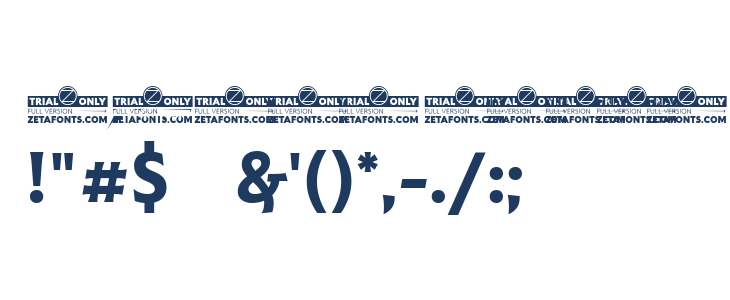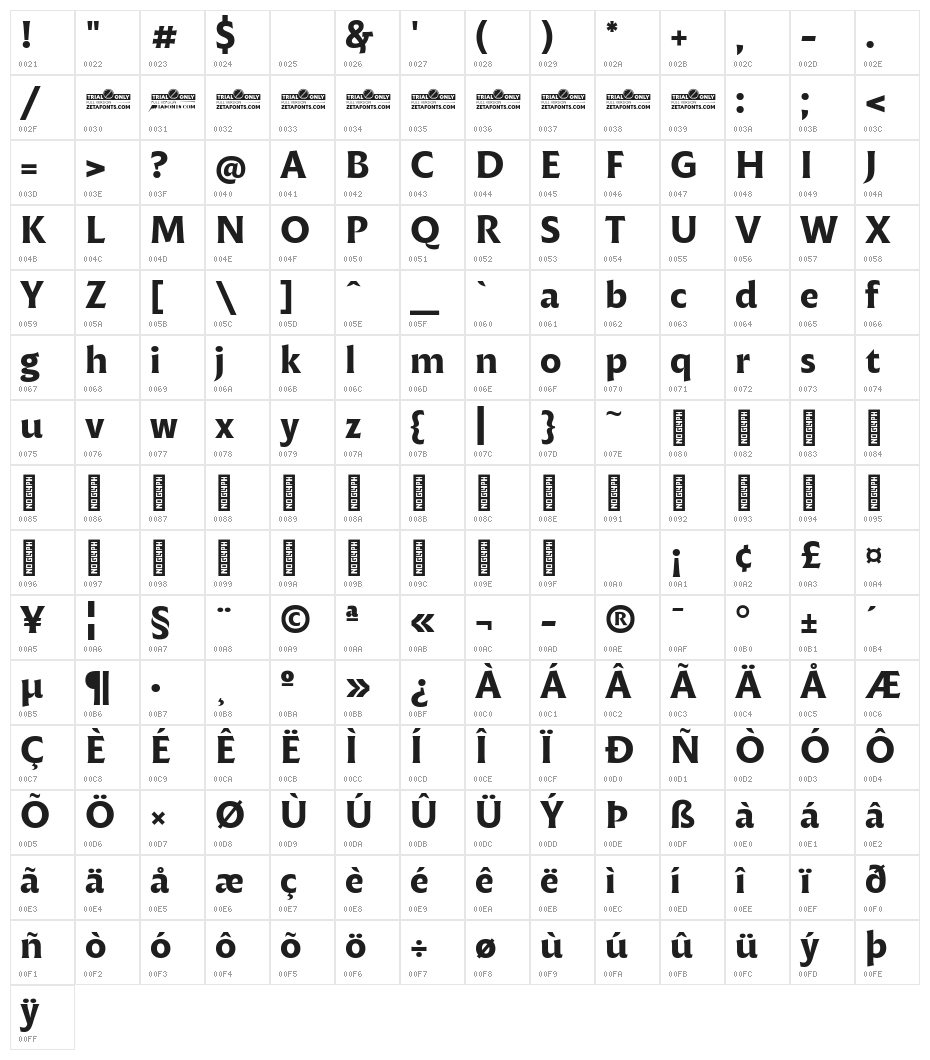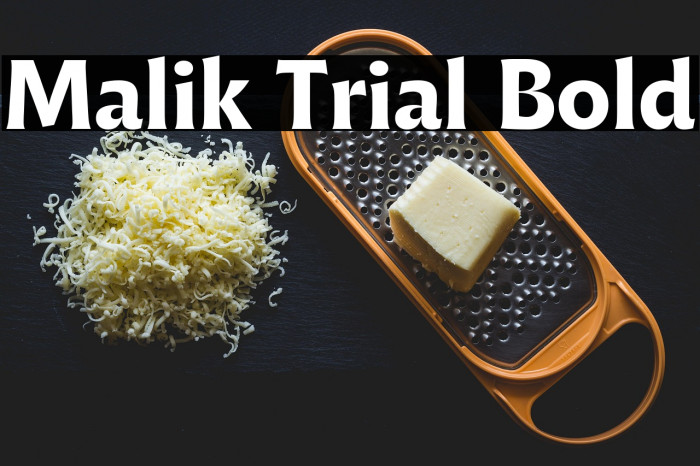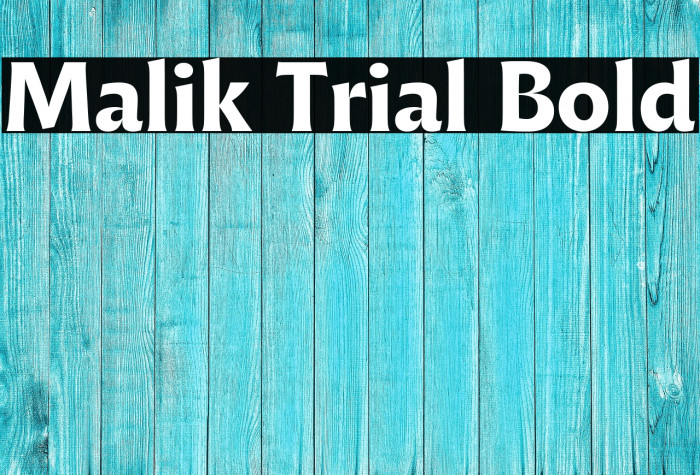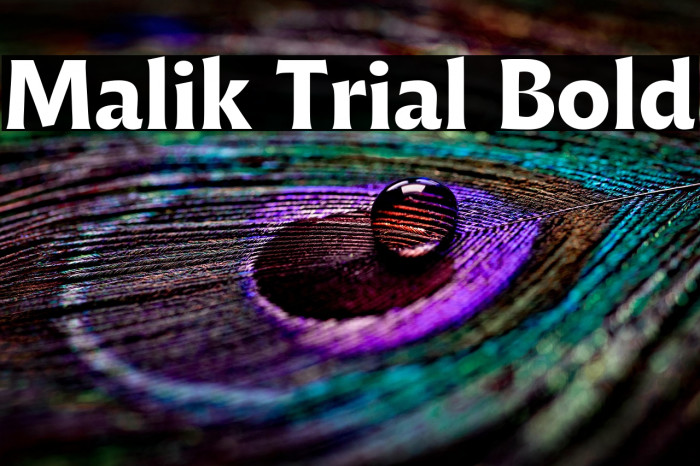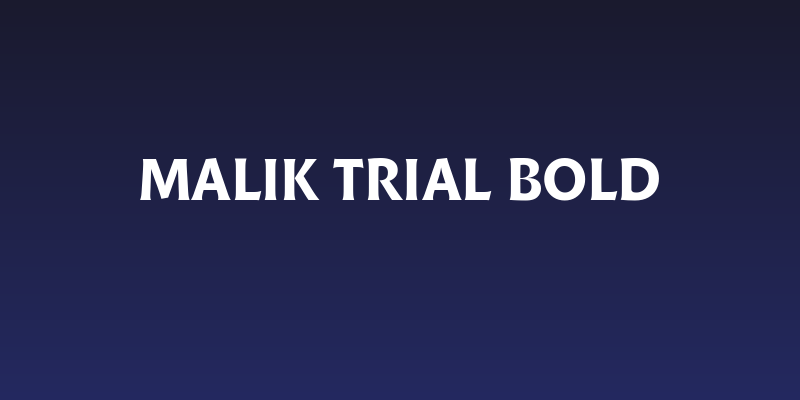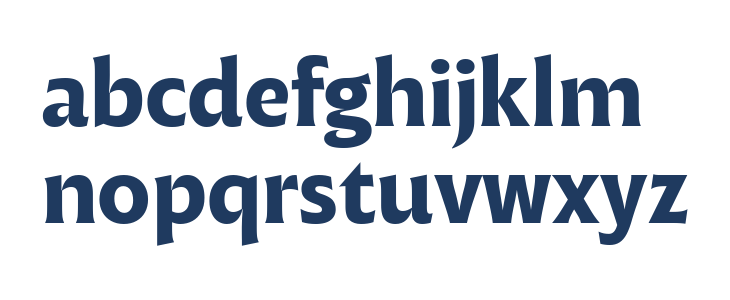
Malik Trial Bold Font
Malik Trial Bold Description
This font features a bold and striking design with strong, angular serifs that give it a commanding presence. The uppercase letters are particularly robust, with a slight slant that adds a dynamic feel. The lowercase letters maintain a consistent weight, providing a harmonious balance between the characters. The overall appearance is both modern and classic, making it versatile for various design needs. The numerals and special characters are crafted with the same attention to detail, ensuring legibility and style across all uses.
| Proposed Projects | Ideal for branding, headlines, posters, and editorial design where a bold statement is needed. |